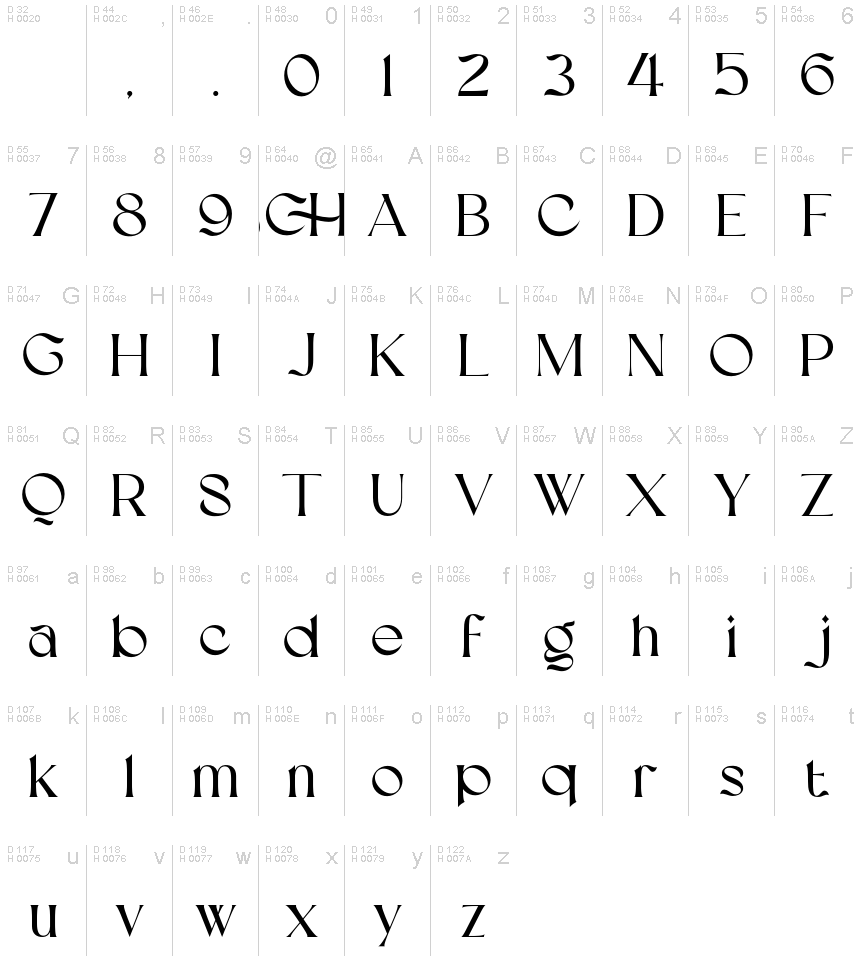
Gracheva
Gracheva stands out as a captivating serif font designed by Aluyeah Studio, showcasing a delightful blend of elegance and playfulness. Its graceful curves and refined serifs evoke a sense of sophistication, while the expressive shapes lend an artistic flair that commands attention.
The font's distinct character is elevated by its dynamic presence—an extraordinary light style that dances across the page, paired with occasional broader forms that create visual interest. This unique interplay results in a font that feels both inviting and strikingly original.
Ideal for branding, editorial designs, or creative projects, Gracheva infuses any text with a charming personality. Whether in headlines or body copy, it enhances the aesthetic appeal while maintaining clarity and readability, making it an excellent choice for those looking to leave a lasting impression.
This version comes with 130+ stunning and super easy-to-use alternates and ligatures.